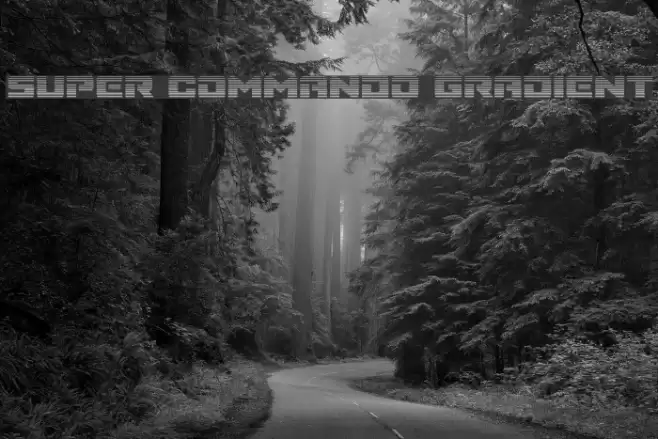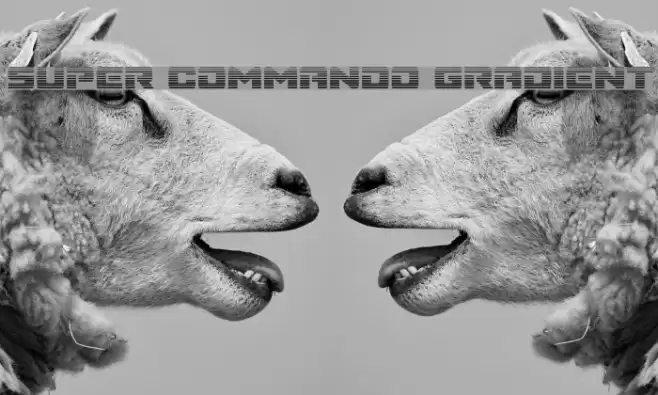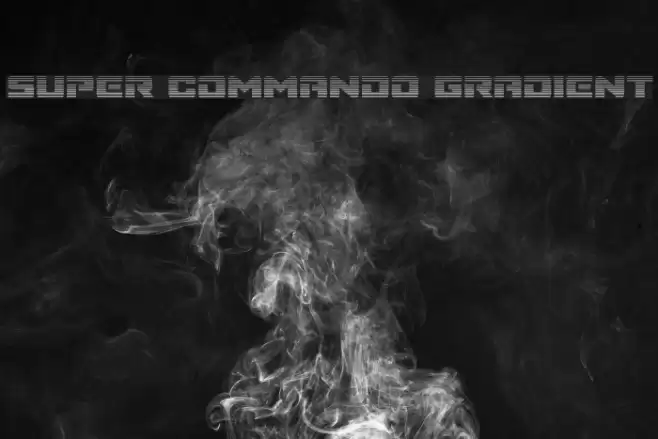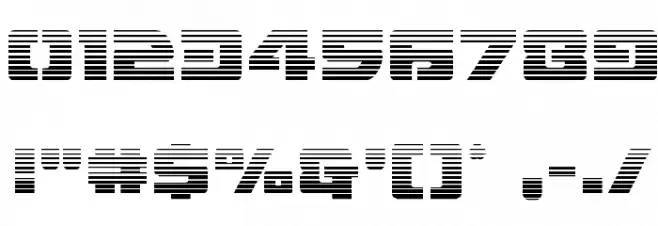
Super Commando Gradient Font
Super Commando Gradient Description
This font features a bold, futuristic design with a distinct gradient effect created by horizontal lines. Each character is constructed with a series of parallel lines that give it a dynamic, high-tech appearance. The uppercase letters are strong and angular, while the lowercase letters maintain a consistent style. Numbers and special characters follow the same design principles, ensuring uniformity across all elements. The font's unique style makes it stand out, ideal for projects that require a modern and edgy look.
A bold, futuristic font with a gradient effect created by horizontal lines from Uncategorized fonts.
- Proposed Projects: Ideal for sci-fi themed designs, video game titles, tech branding, and futuristic posters.
- Overall Style: Futuristic, Modern